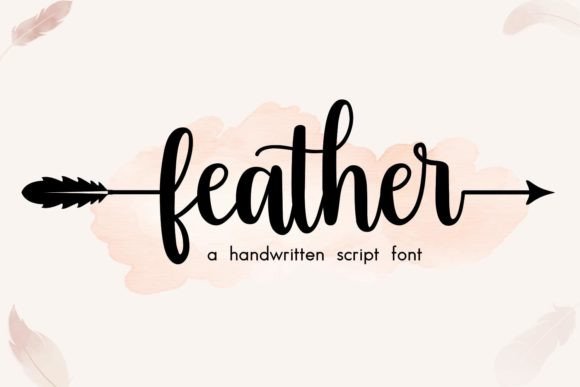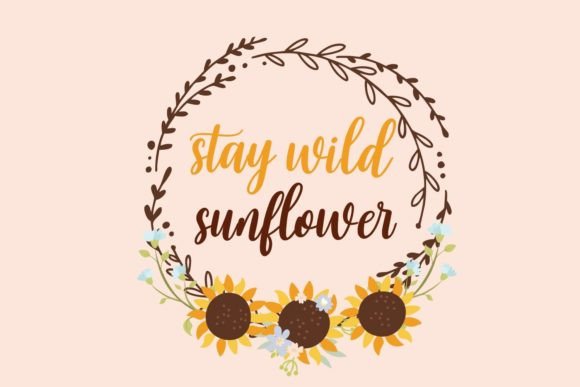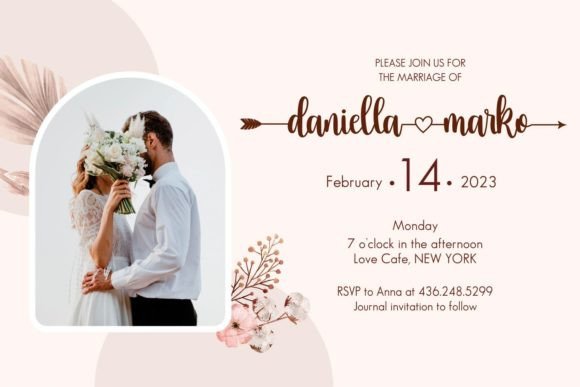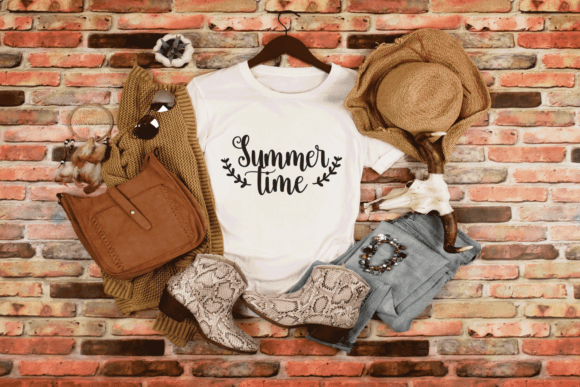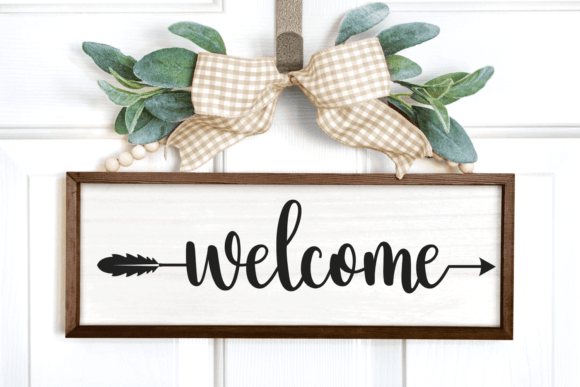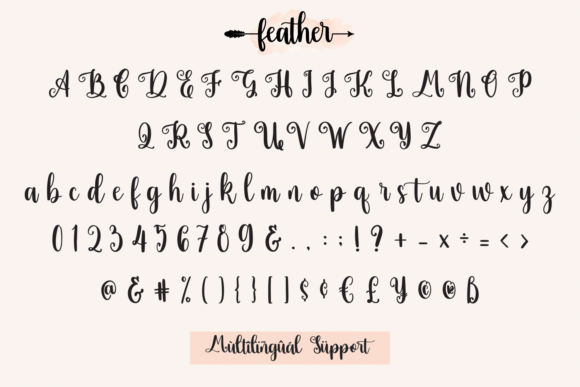
Feather Font
Feather is a script handwritten font.
It is a quirky and natural hand-drawn font.
This font is ideal for crafting, branding, and decorates your any project.
Use it for your business, book covers, stationery, marketing, magazines, and more.
Fall in love with its incredibly versatile style, and use it to create spectacular designs!
Use this font for any crafting project that requires a personalized look!